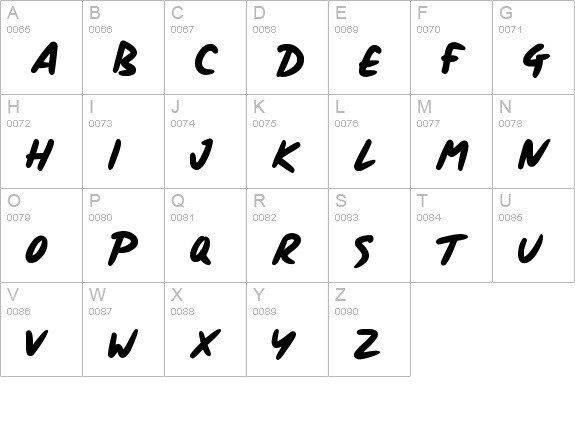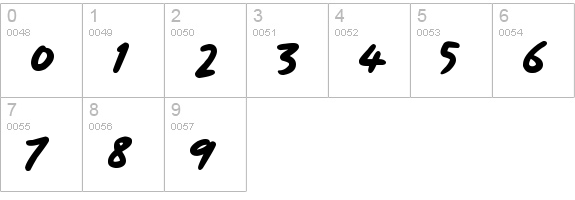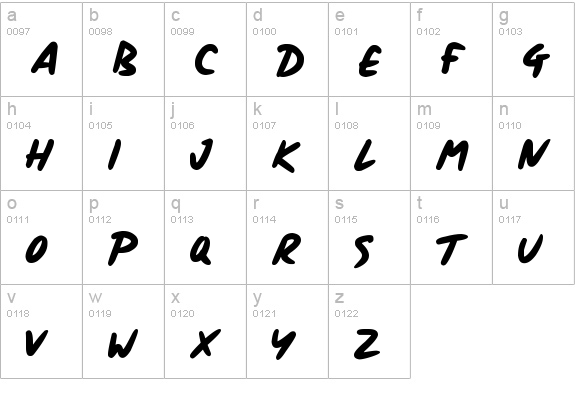
Signboard Font Details
Signboard is a donationware font in the Script > Handwritten category, designed by Darrell Flood. It has been downloaded 61 times and is available for Windows, Mac and Linux.
Introducing Signboard font - a striking and versatile typeface that exudes a perfect blend of modernity and classic elegance. This font is perfect for creating eye-catching signage, posters, and branding materials that demand attention. With its bold and clean lines, Signboard font is sure to make a statement and leave a lasting impression.
Whether you're working on a sleek storefront sign, a captivating advertisement, or a stylish logo design, Signboard font is the perfect choice to add a touch of sophistication and professionalism. Download Signboard font today and let your creativity shine with this exceptional typeface.